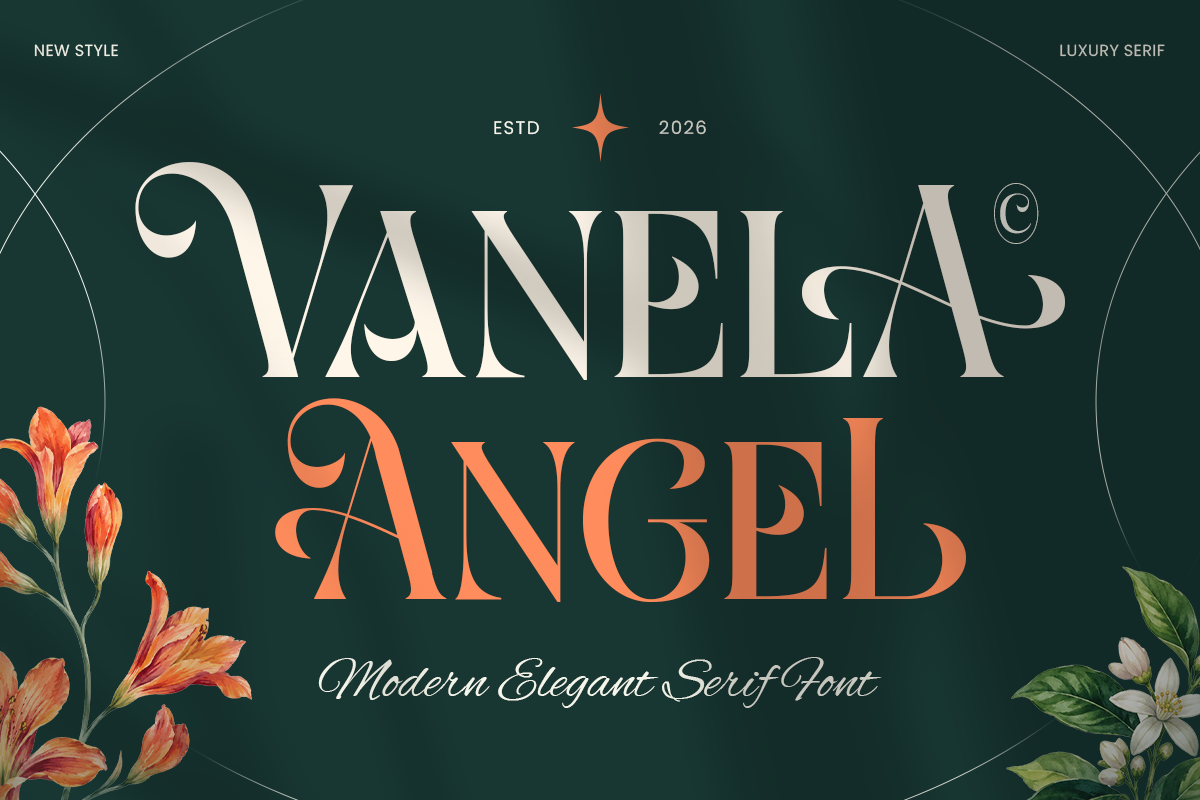
Vanela Angel
-Modern Elegant Serif FontVanela Angel – Modern Elegant Serif Font
Vanela Angel is a modern elegant serif font that blends graceful letterforms with a refined contemporary aesthetic. Designed to feel sophisticated, feminine, and timeless, Vanela Angel brings a polished presence to every typographic composition while maintaining a clean and modern character.
Perfect for luxury branding, fashion logos, beauty packaging, editorial layouts, wedding stationery, invitations, and premium product identities, Vanela Angel adds an elegant touch to both classic and contemporary designs. Its refined serif details make it especially suitable for headlines, logotypes, social media graphics, and sophisticated print materials.
From boutique brands and fashion labels to beauty studios, lifestyle businesses, and creative portfolios, Vanela Angel creates a memorable visual identity with effortless elegance. Its versatile character makes it a beautiful choice for designers looking to combine modern sophistication with a timeless serif style.
Vanela Angel – Modern Elegant Serif Font Features
Graceful modern serif letterforms with elegant proportions
Refined and sophisticated style for premium branding
Perfect for fashion, beauty, wedding, and luxury designs
Ideal for logos, packaging, editorial, and invitations
Works beautifully for digital and print applications
OpenType features for enhanced typographic flexibility
Bring graceful sophistication to your designs with Vanela Angel – a modern serif font created for elegant branding and timeless visual expression. ✨